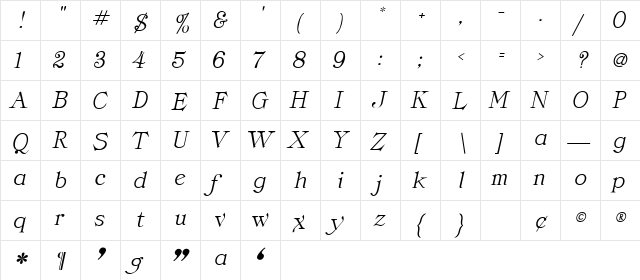
Clarita Italic Font Preview
Clarita Italic
Clarita Italic Font Details
Design Context for Clarita Typeface
Clarita is a composed and adaptable typeface that performs quietly and consistently across a wide range of design contexts. The dynamic lean of this cut emphasises speed and emphasis in any layout.
Pro Tip: Try Clarita for annotation and caption copy alongside an upright companion — the contrast in angle creates a dynamic but ordered typographic system.